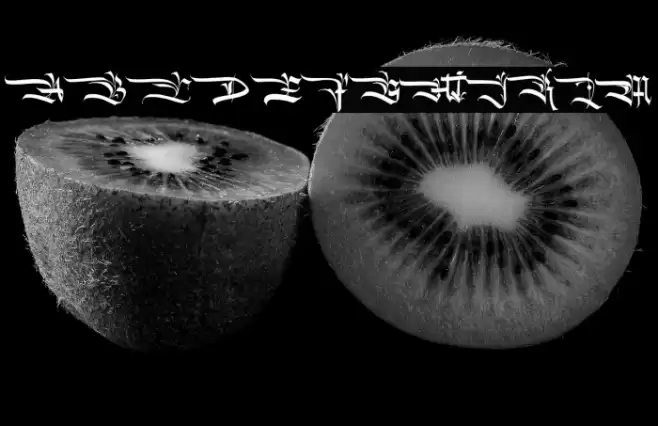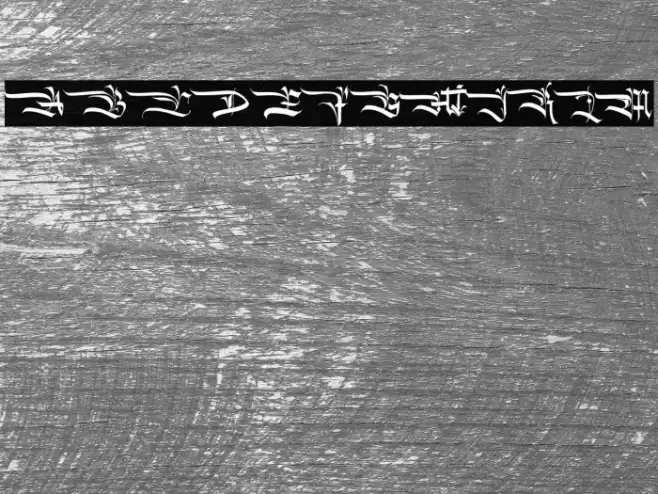
Blackside Personal Use Font
Blackside Personal Use Description
This font exhibits a bold and intricate design, reminiscent of traditional blackletter styles. The uppercase letters are characterized by sharp, angular lines and dramatic flourishes, creating a sense of historical elegance. The lowercase letters maintain a consistent style, with a slightly more condensed form that enhances readability while preserving the ornate aesthetic. The numbers and special characters are crafted with the same attention to detail, ensuring a cohesive look across all elements. This font is ideal for projects that require a touch of gothic or medieval flair, offering a striking visual impact.
A bold, blackletter-style font with intricate, angular designs from Uncategorized fonts.
- Font: Blackside Personal Use
- Proposed Projects: Suitable for branding, posters, book covers, and any design requiring a gothic or medieval theme.
- Overall Style: Vintage
- Use Case: Logos, Headlines, Decorative text